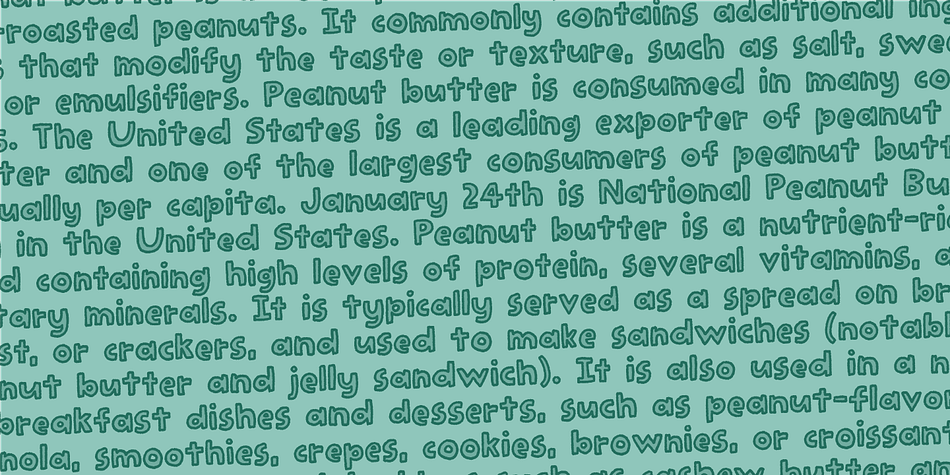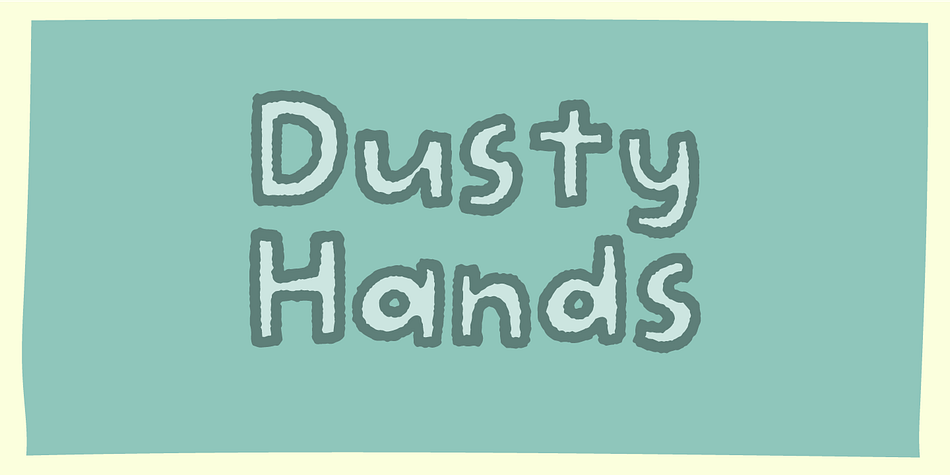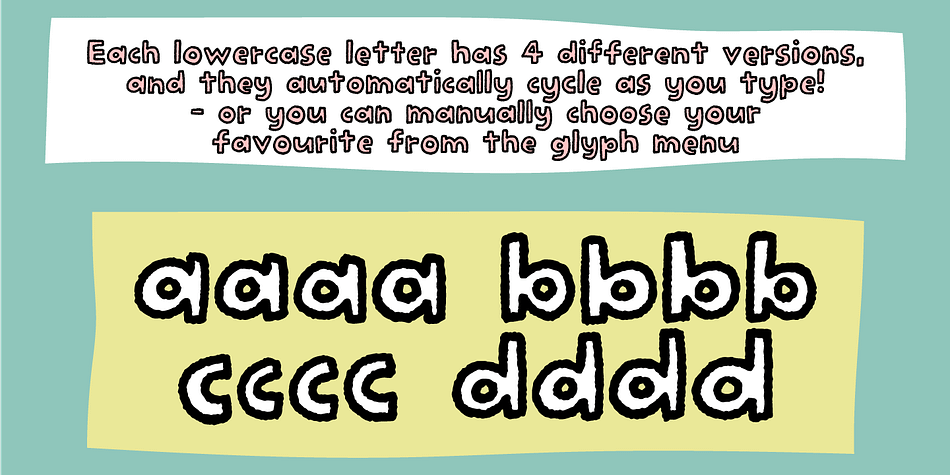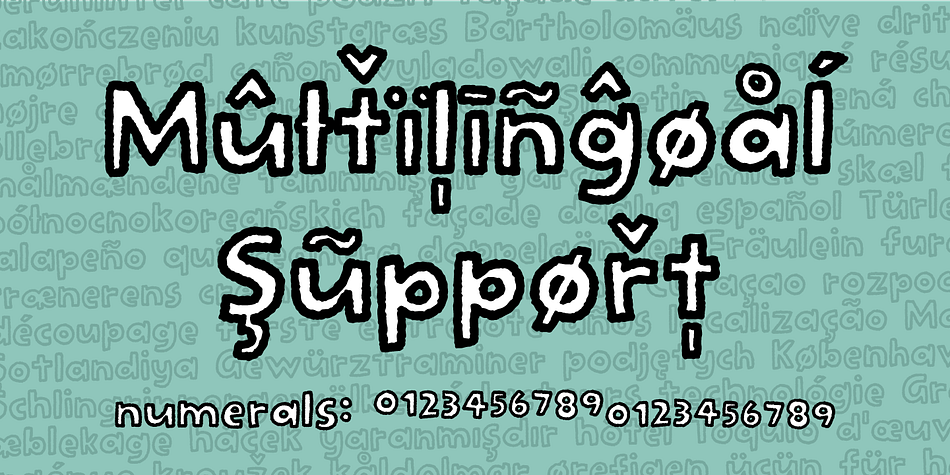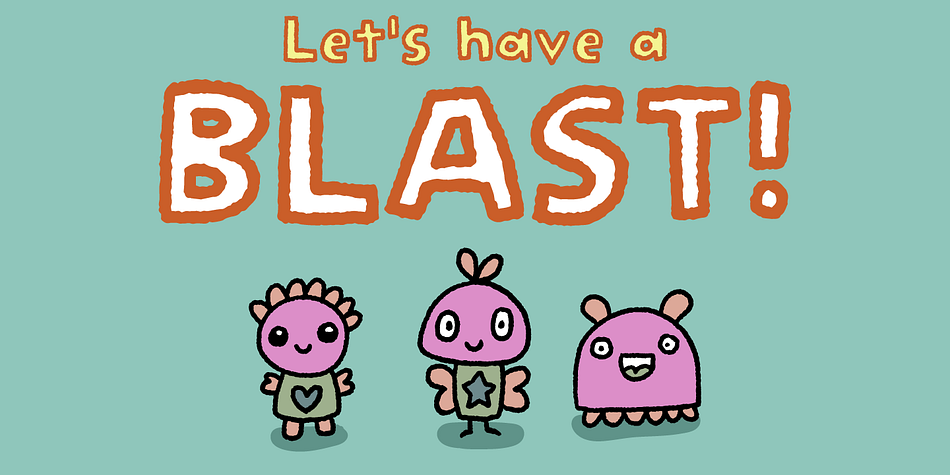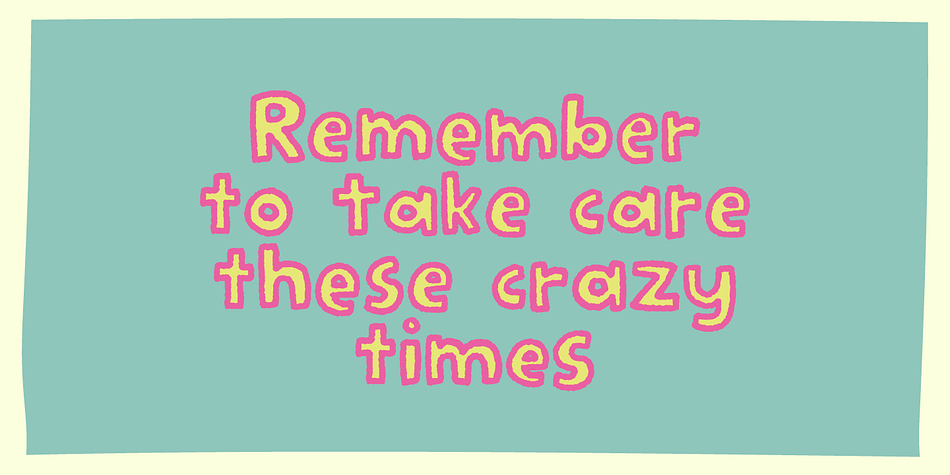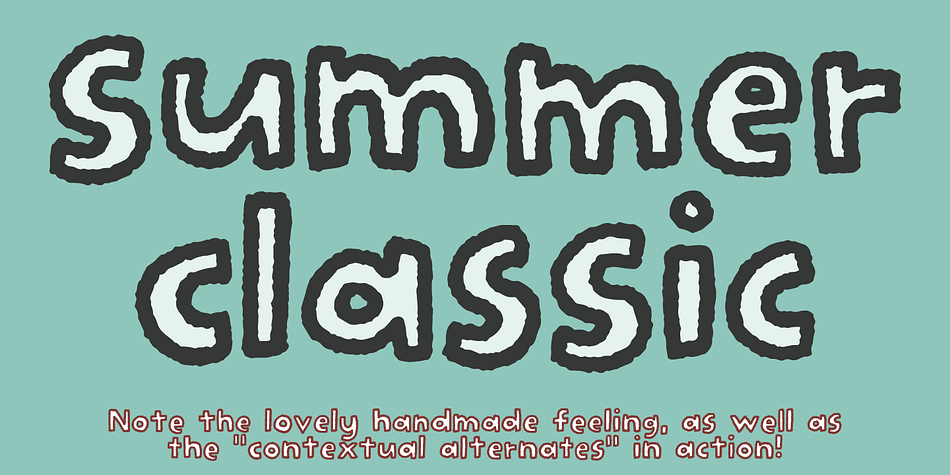
Dusty Hands
Designed by Jakob Fischer, Dusty Hands is a hand display and kids font family. This typeface has three styles and was published by Bogstav.
Dusty Hands - my crunchy legible comic font, originally with a fat marker and then digitally manipulated.
I’ve made 3 versions for you, and they all fit like a glove - use them as they are, or do some layered effects.
All versions have the “contextual alternates magic” - and in this case it means 4 slightly different versions of each lowercase letter.